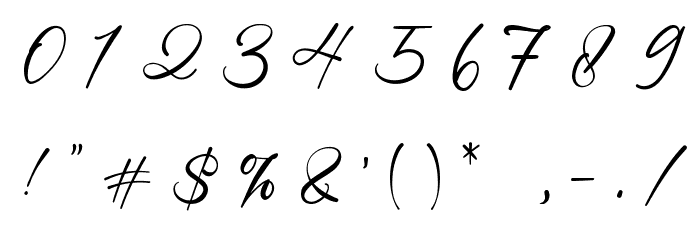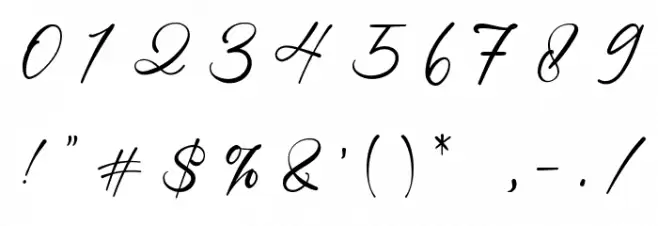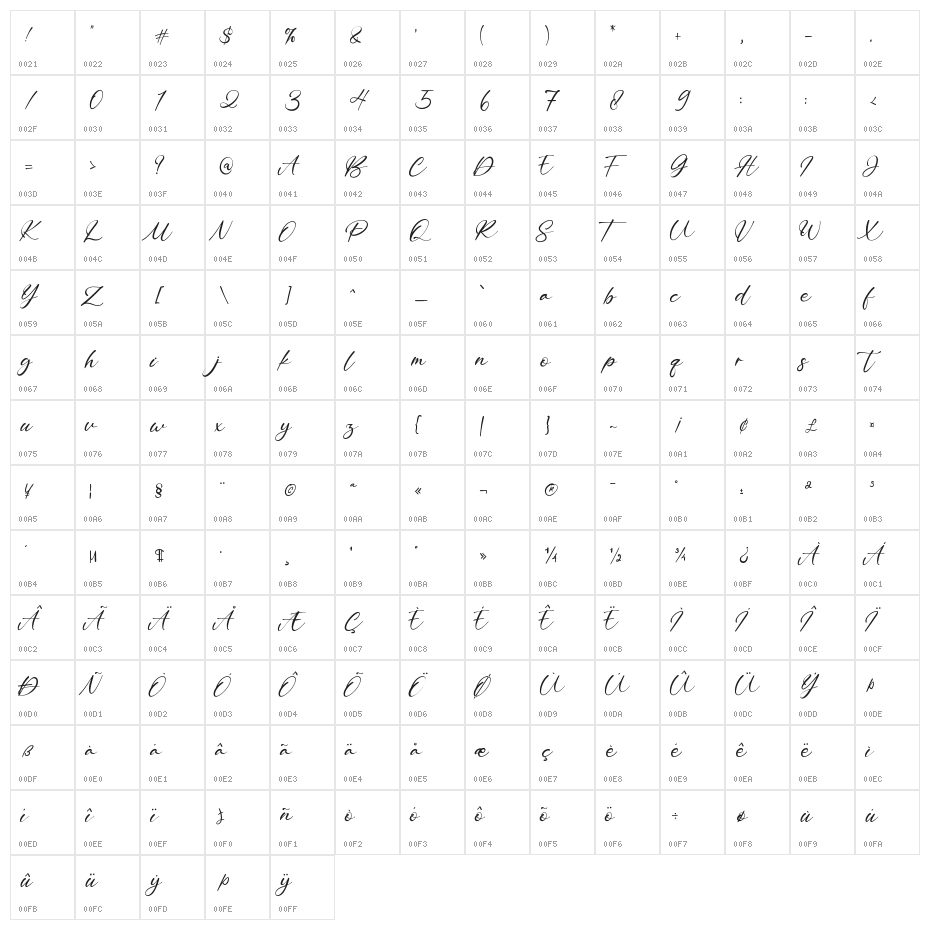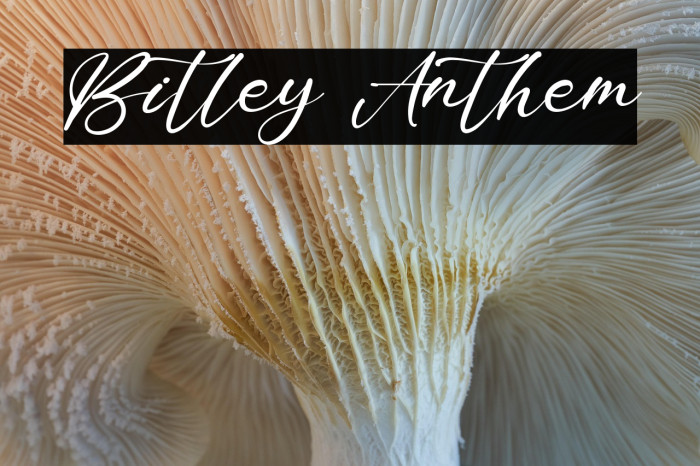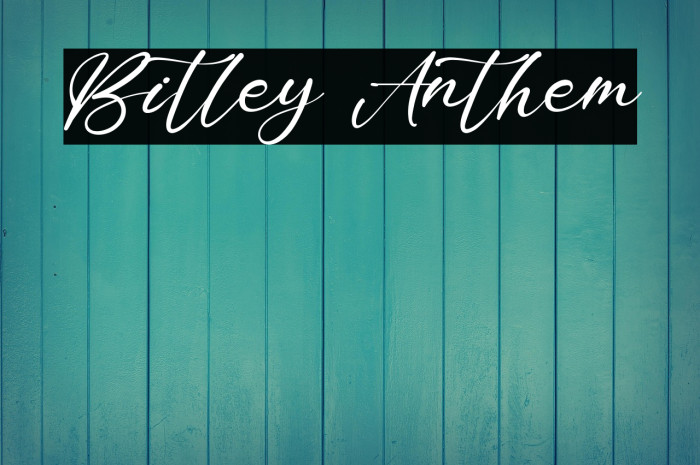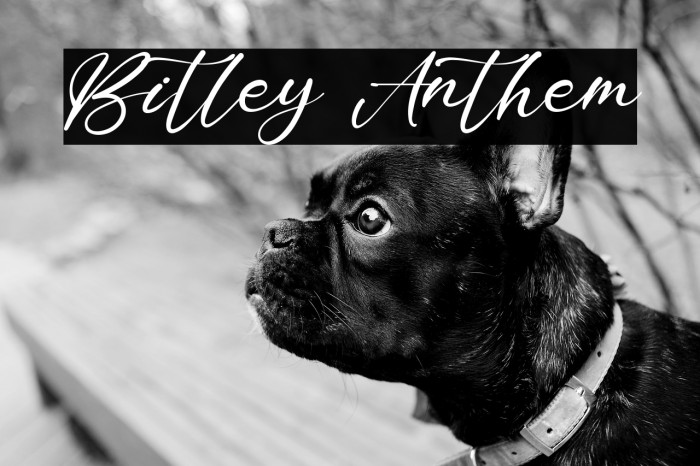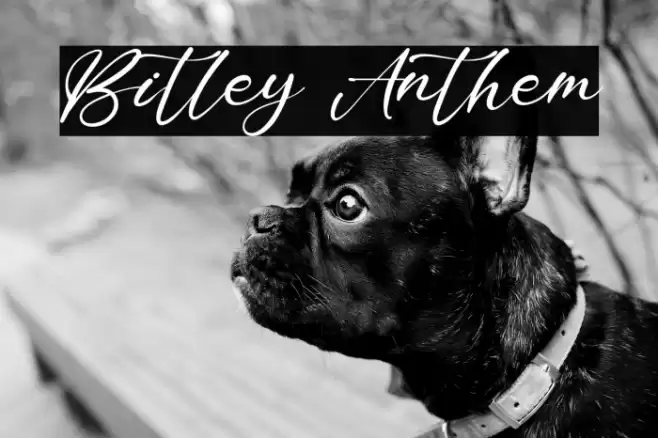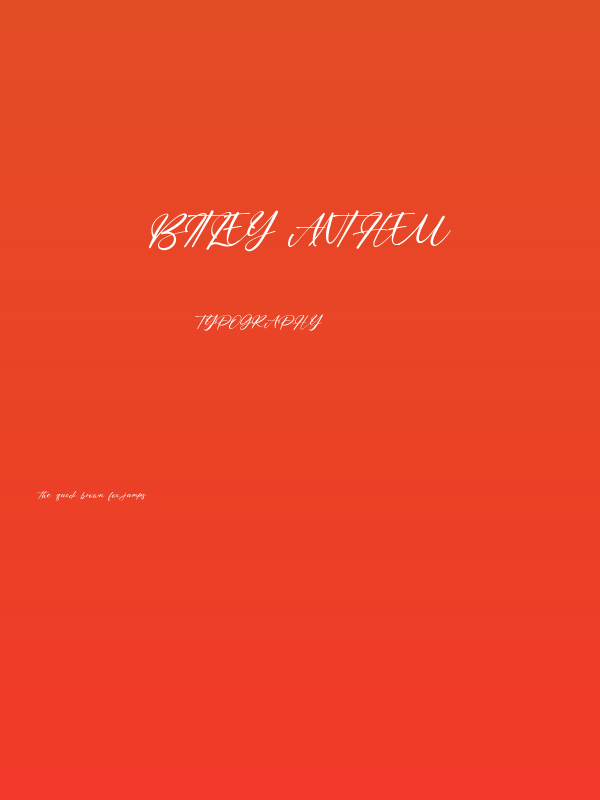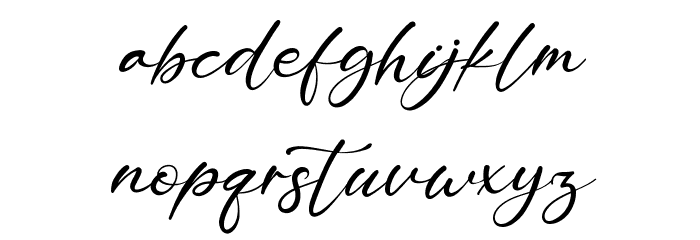
Bitley Anthem Font
Bitley Anthem Description
This elegant script font features fluid, cursive strokes that convey a sense of sophistication and grace. The uppercase letters are bold and sweeping, with intricate loops and flourishes that add a touch of drama. The lowercase letters maintain a consistent flow, with gentle curves and a slightly slanted orientation that enhances readability. Numbers and special characters are designed with the same attention to detail, ensuring a cohesive look across all text elements. The overall style is both classic and modern, making it versatile for various design applications.
| Proposed Projects | Ideal for wedding invitations, elegant branding, luxury product packaging, and personal stationery. |